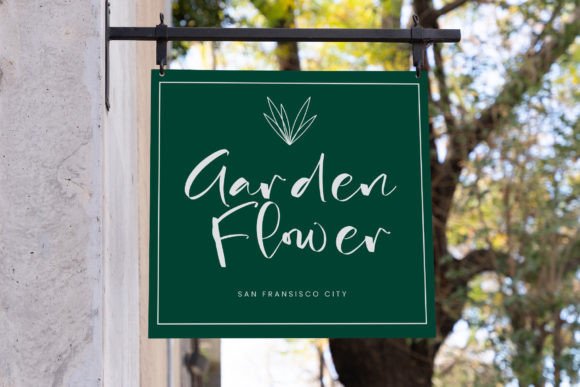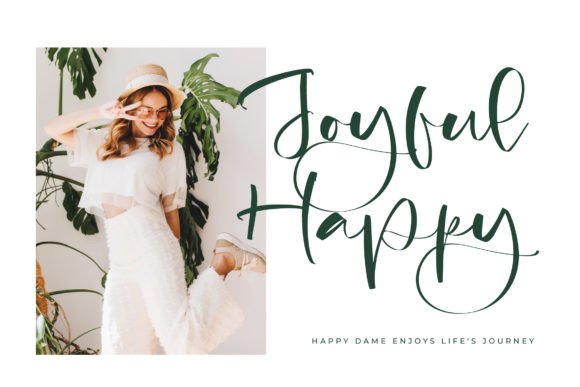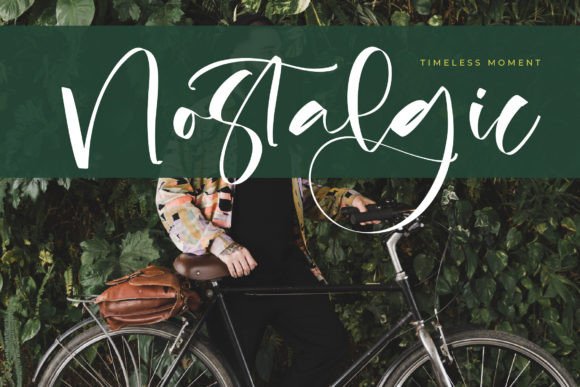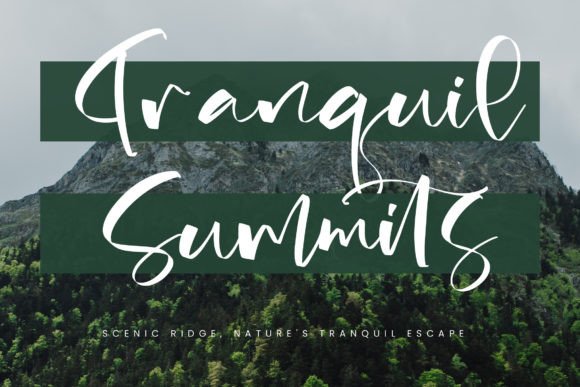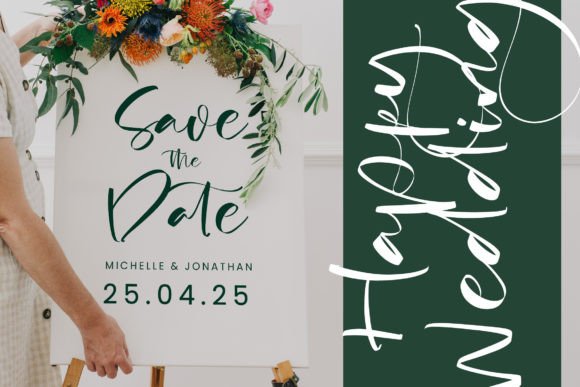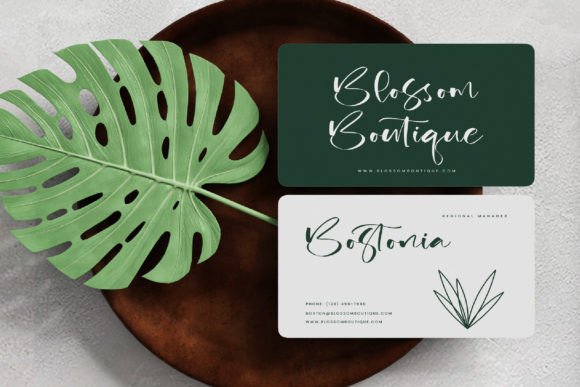
Discover the Art of Luxury Script with Bistania Mayneli Font
Have you ever stared at a blank canvas, trying to bring a creative idea to life? The blank page can be intimidating, but sometimes it’s the perfect opportunity to let your imagination run wild. I still remember the thrill of designing my first luxury brand logo, and the excitement of finding the perfect font to match my vision.
That’s where Bistania Mayneli Font comes in – a stunning Luxury Script font from Letterena that’s perfect for creating a lasting impression. With its elegant and sophisticated design, Bistania Mayneli Font is ideal for any project that requires a touch of luxury, from logos and branding projects to homeware designs and product packaging.
As a designer, you know how crucial the right font can be in elevating your work. Bistania Mayneli Font is a valuable addition to any designer’s toolkit, offering a unique blend of style and sophistication that’s sure to impress. Whether you’re creating a luxury brand or simply want to add a touch of elegance to your designs, Bistania Mayneli Font is the perfect choice.
- Unique Characteristics: Bistania Mayneli Font features a unique blend of modern and vintage styles, with intricate details and ornaments
Bistania Mayneli Font Review
I was really excited to dive into the Bistania Mayneli Font, and overall, I’m impressed. ✨ The font’s elegant and refined aesthetic makes it perfect for high-end branding, luxury products, or sophisticated digital designs. The subtle flair and ornate details add a touch of sophistication, setting it apart from more generic fonts.
The font’s legibility is also noteworthy, making it suitable for both print and digital applications. The character set is comprehensive, and the font’s robustness is evident in its ability to scale well across various sizes and resolutions.
- ✨ Elegant and refined aesthetic
- ✨ Suitable for high-end branding and luxury products
- ✨ Subtle flair and ornate details add sophistication
- ✨ Legibility is excellent, suitable for print and digital applications
- ⚠️ Limited language support, mainly focused on Western European languages
- ⚠️ May not be suitable for casual or informal designs due to its sophisticated nature
Overall, I’d give the Bistania Mayneli Font a solid 4.5 out of 5 stars. While it has some limitations, its unique aesthetic and excellent legibility make it a valuable addition to any designer’s toolkit. If you’re looking for a font that exudes luxury and sophistication, Bistania Mayneli is definitely worth considering.
Getting the Most Out of the Bistania Mayneli Font
To get the most out of the Bistania Mayneli Font, use it in conjunction with bold and italic text to create visual interest.
Also, experiment with different font sizes and colors to add depth and hierarchy to your design.
The Bistania Mayneli Font is ideal for:
Displaying headlines and titles.
Creating a unique and creative look for your brand.
Adding a touch of elegance and sophistication to your design.